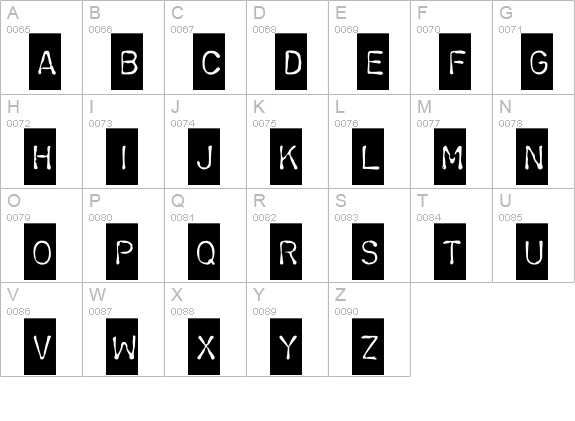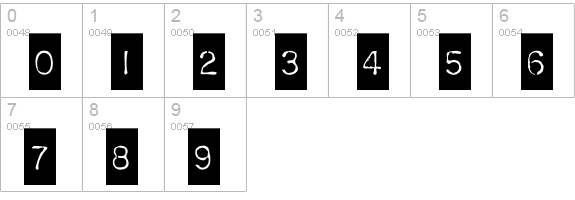
ChromosomeReversed-Light Font Details
ChromosomeReversed-Light is a refined, elegant variant in the ChromosomeReversed typeface family \xE2\x80\x94 well suited to elegant body text, refined sub-headings, and luxury branding.
ChromosomeReversed-Light font is a modern and sleek typeface that exudes sophistication and elegance. Its clean lines and subtle curves make it perfect for a wide range of design projects, from branding to editorial layouts. The unique reversed effect adds a touch of creativity and originality to any design it is used in. This font is freely available to download at FontsMarket.com, making it easily accessible for designers looking to enhance their projects with a stylish and eye-catching typeface. Whether you're working on a website, poster, logo, or any other design project, ChromosomeReversed-Light font is sure to make a statement and elevate your work to the next level.